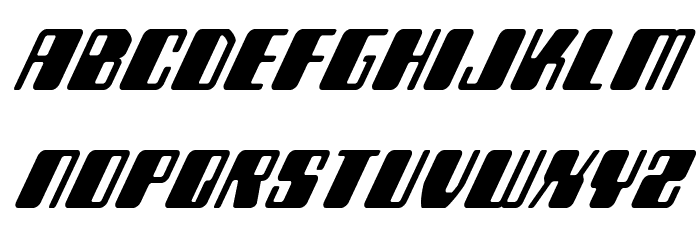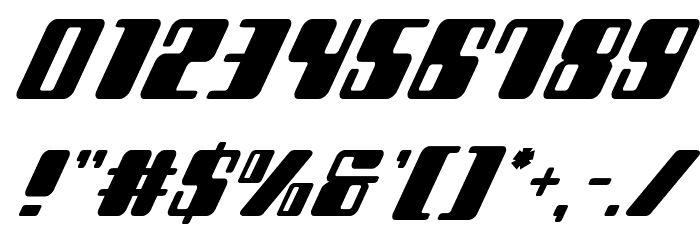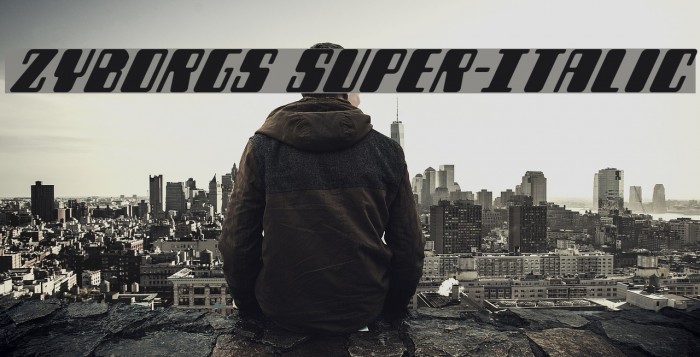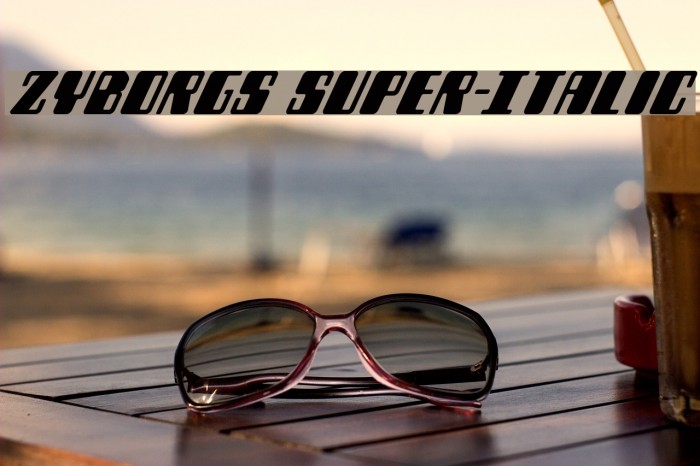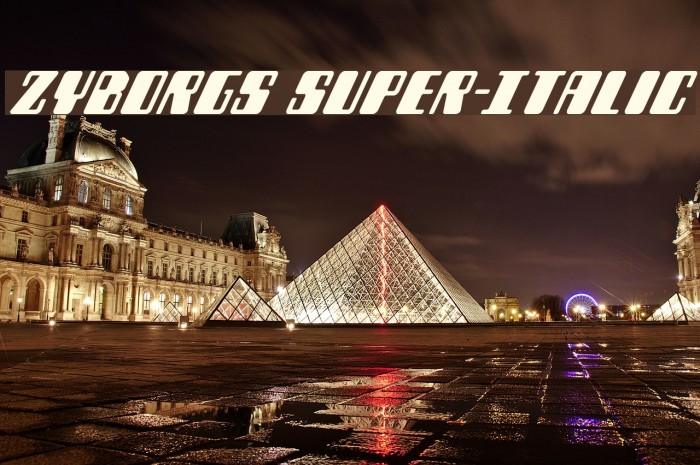
Zyborgs Super-Italic Font
This font features a bold, italicized style with a futuristic and dynamic appearance. The characters are sharply angled and slightly condensed, giving a sense of motion and speed. The strokes are thick and consistent, providing a strong visual impact. The uppercase and lowercase letters maintain a uniform slant, enhancing the italic effect. Numbers and special characters are designed with the same boldness and angularity, ensuring coherence across all glyphs. This font is ideal for projects that require a modern and energetic look.
- Font: Zyborgs Super-Italic
- Proposed Projects: Ideal for sports branding, tech-related designs, video game titles, and dynamic posters.